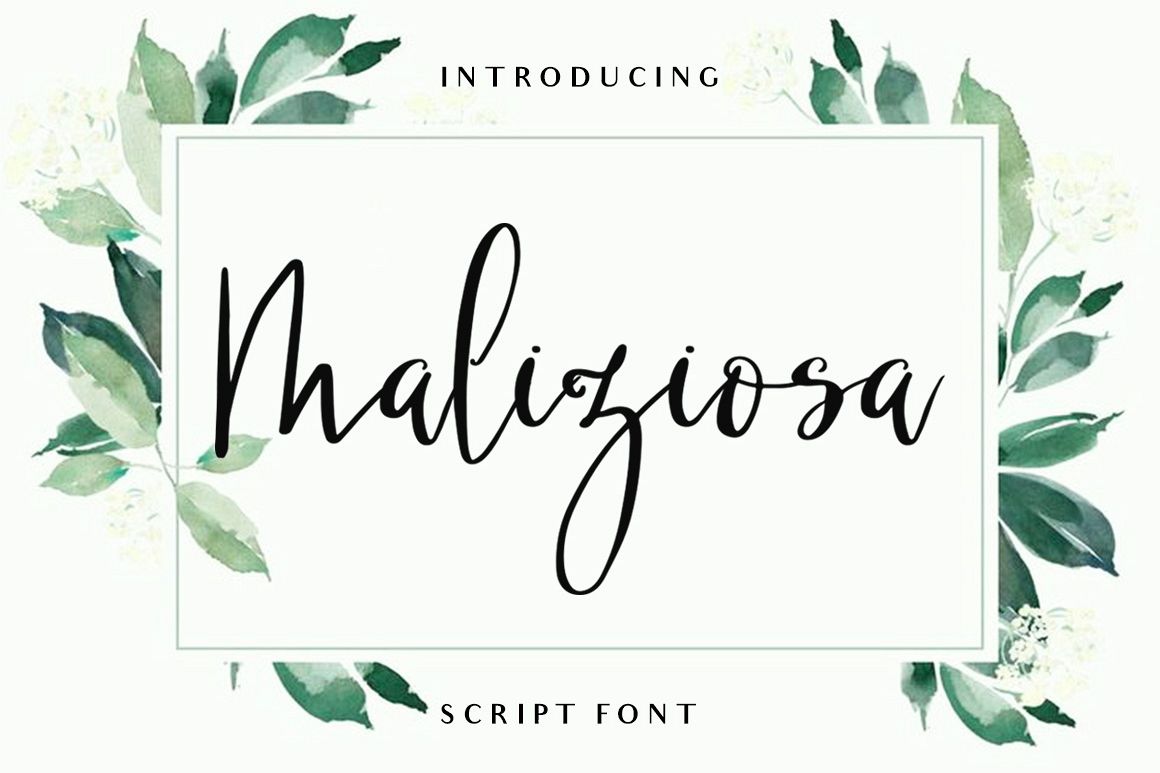
MALIZIOSA SCRIPT FONT
MaliziosaRegular
Maliziosa Script is a feminine handmade font with a stylish and elegant touch.
Fits perfectly for your texts, logo, quotes, blog header, poster, wedding invitation, stationery, etc.